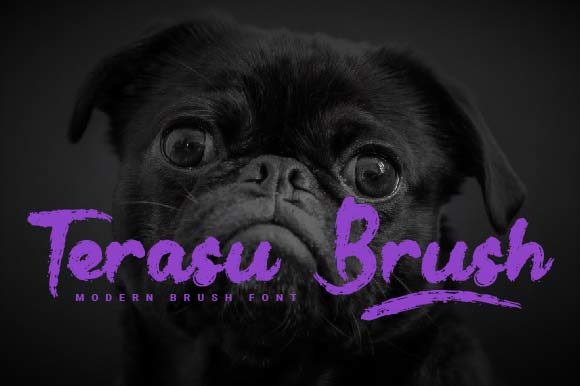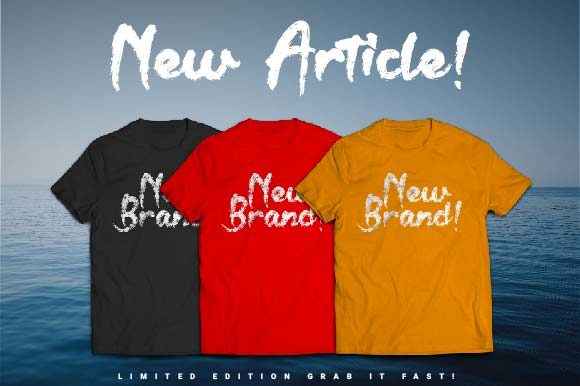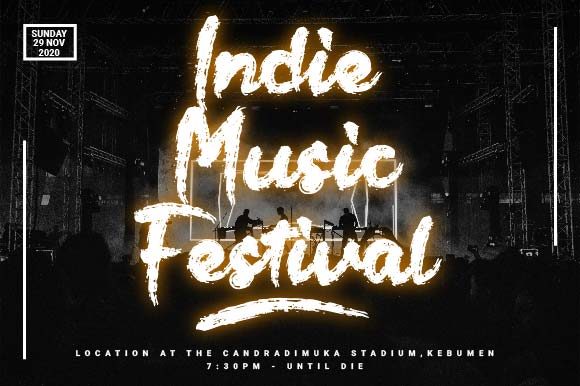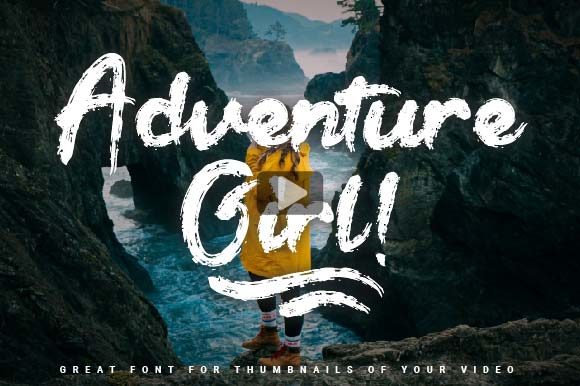
About Terasu Brush Font
Terasu Brush is a cute yet thick lettered handwritten font. Add it confidently to your projects, and you won’t be disappointed.